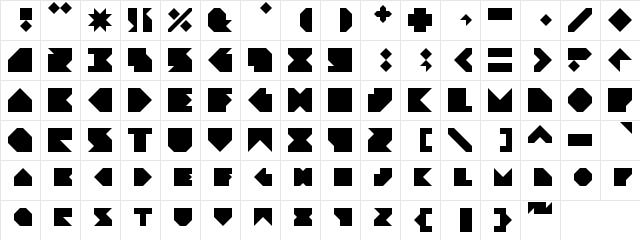
Angleblock Regular
| Designer | nrkn |
Design Context for Angleblock Typeface
Angleblock is a composed and adaptable typeface that performs quietly and consistently across a wide range of design contexts.